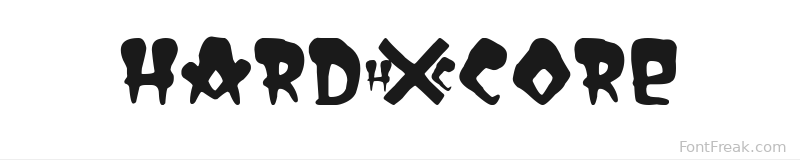
Hard+Core
The Hard+Core font by woodcutter Manero is a striking display typeface that makes a bold statement in any design project. This unique font falls into the decorative category, characterized by its irregular shapes and playful forms that exude a sense of raw energy. The strokes vary in weight, creating a dynamic contrast that draws the eye, while the spacing between letters adds to its distinctive personality. Each character seems to have been crafted with a rough, hand-carved aesthetic, making it an ideal choice for projects that seek to convey authenticity and creativity.
Best suited for a variety of applications, the Hard+Core font shines in contexts such as album covers for punk or rock music, edgy fashion branding, and dynamic event posters. Its unique style also makes it a perfect fit for skate culture graphics, as well as promotional materials for art exhibitions that showcase contemporary or alternative artists. Small business owners looking to stand out in a crowded market will find this font particularly appealing for creating memorable logos and signage.
Targeted primarily at graphic designers, content creators, and small business owners, the Hard+Core font offers versatility while infusing a sense of character into any project. It resonates with those who appreciate unconventional design and are eager to make a lasting impression.
What sets the Hard+Core font apart is its ability to encapsulate a sense of fun and rebellion, making it a fantastic choice for anyone wanting to break away from the ordinary. Whether you're working on a creative campaign or simply looking for a unique typeface, the Hard+Core font free download provides the perfect opportunity to elevate your design work with its engaging and unforgettable style.